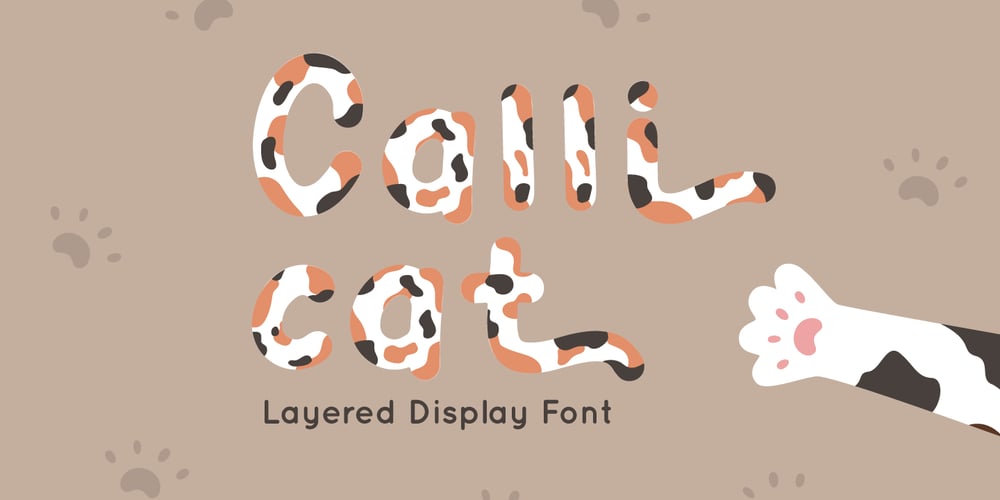
Calli Cat
Calli Cat font
Calli Cat Font Family was designed by Fadli Ramadhan Iskandar and published by Attype Studio. Calli Cat contains 3 styles and family package options. Calli cat is display font inspired by Pattern of Calico Cats. Calli Cat is layered Font that simple to use to make a word like calico pattern. Calli cat perfectly match for any product like book cover, t-shirt, branding, promotion, social media post, quotes, crafting, photography and more. What’s included:- Ending Swash- Layered Fonts- Multilingual Support – Made it into separated file to make it easier to use by beginner & separated file user can use the font with software which doesn’t accept open type features.Hope you enjoy with our font!Attype Studio